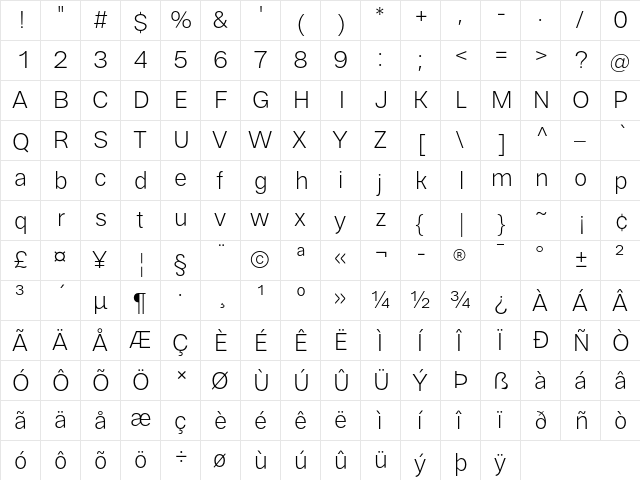
Cabrion Light
| Foundry | Anugrah Pasau |
| Designer | Anugrah Pasau |
Design Context for Cabrion Typeface
Cabrion offers clean, dependable letterforms without strong stylistic allegiance, making it a practical choice for designers who need flexibility. The delicate stroke weight brings airiness and refinement to layouts.